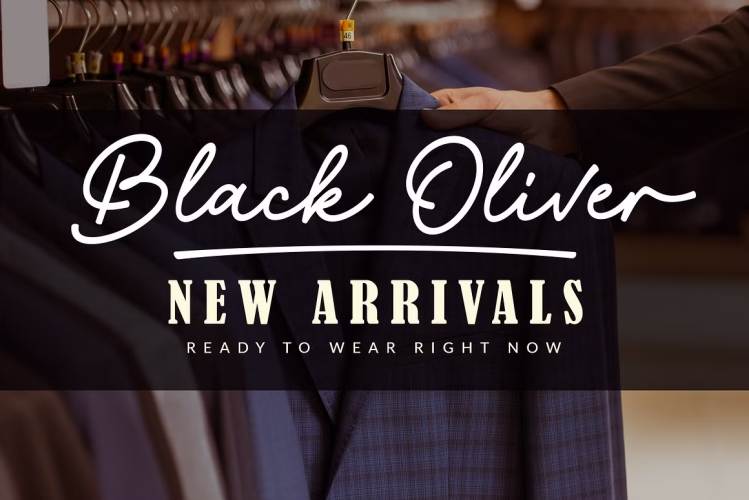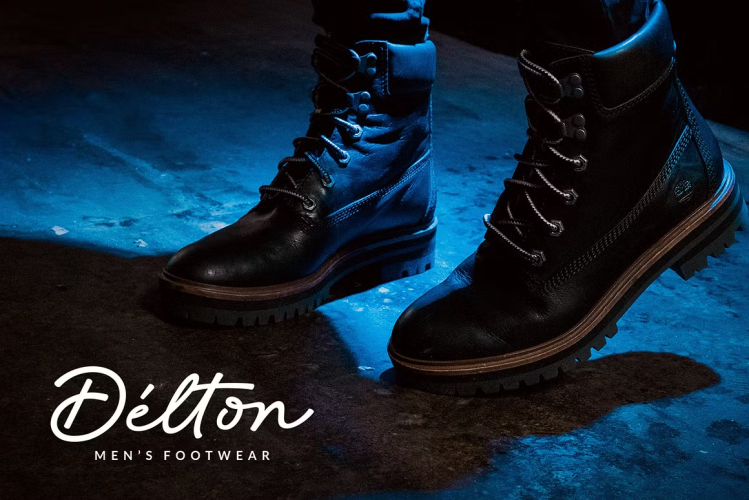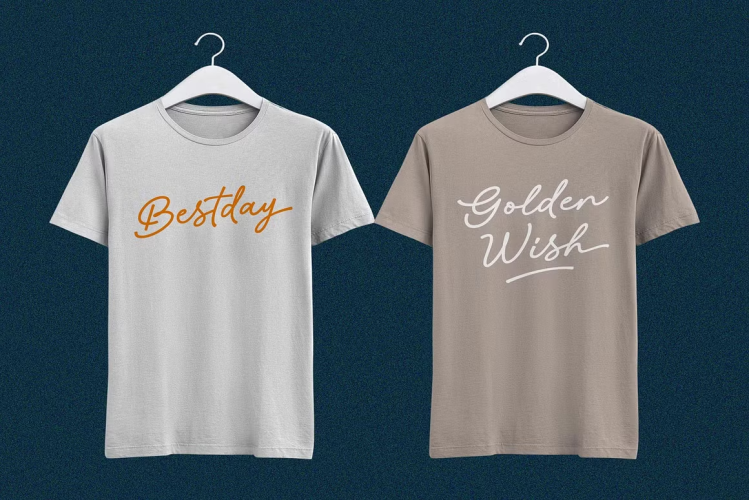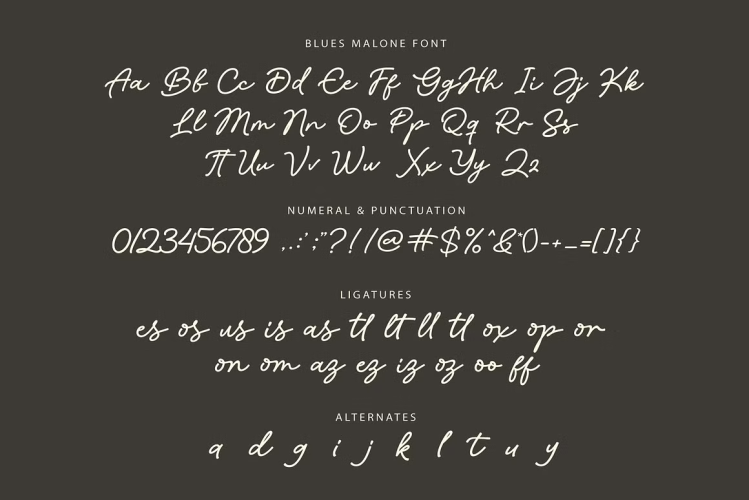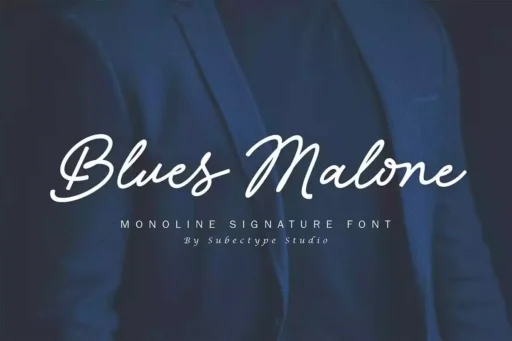
Blues Malone Font
Blues Malone is a monoline signature font with a sophisticated demeanour by Subectype Studio for a refined and elegant look. This font has remarkable legibility and is suitable for any design project. Blues Malone is ideal to use for Logos, Invitations, Wedding Stationery, Signatures, Branding Materials, Clothing Designs, and Headlines, among others. Among the striking characteristics of this font is the ending swash alternate that gives your designs a beautiful and elegant touch, thus making them unique.
Also, Blues Malone has multilingual support, which is an advantage for designers who work on international design projects.
Blues Malone Font is a Script And Handwritten font that brings a professional and versatile look to your projects. Blues Malone is a monoline signature font with a sophisticated demeanour by Subectype Studio for a refined and elegant look.